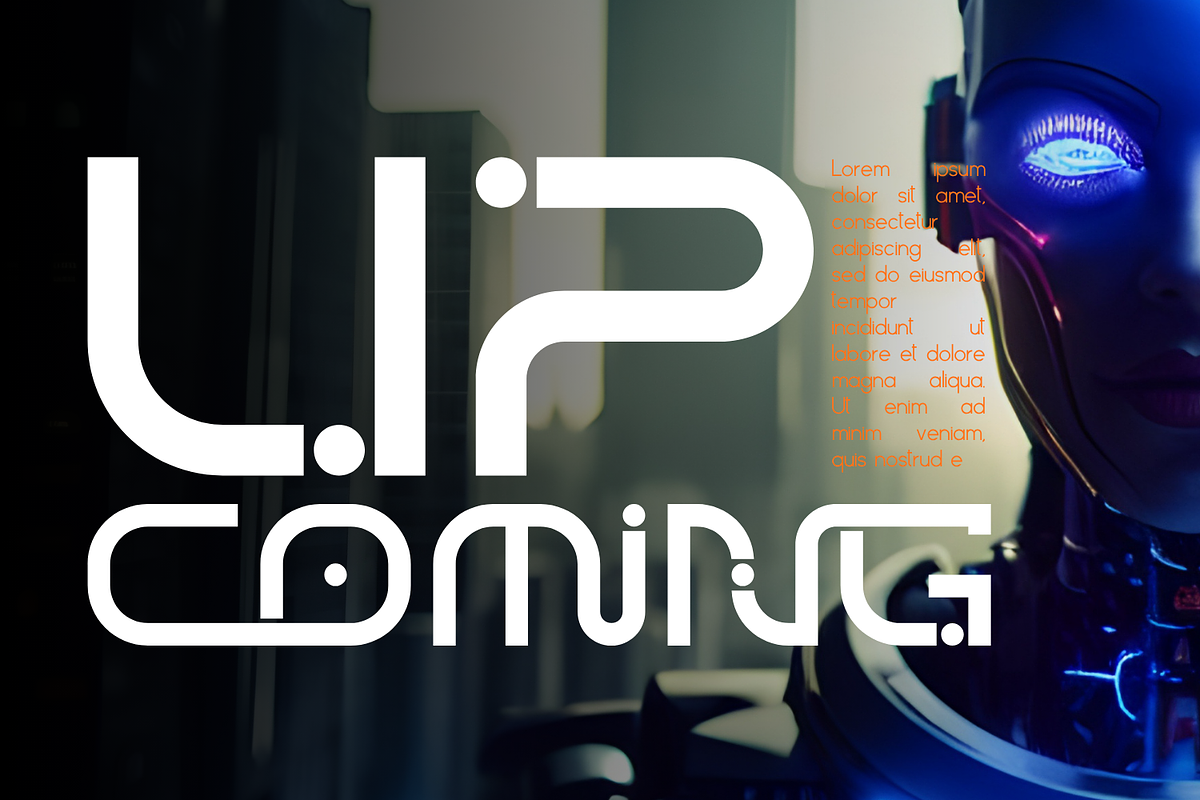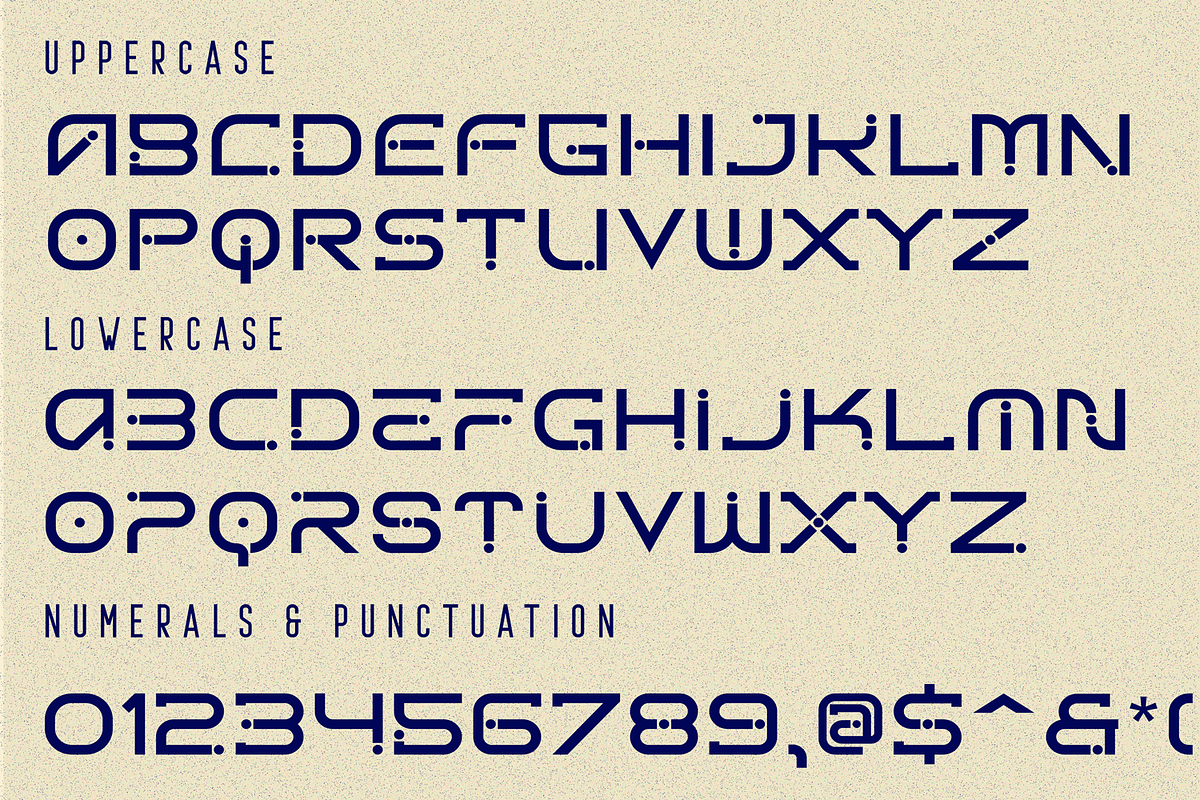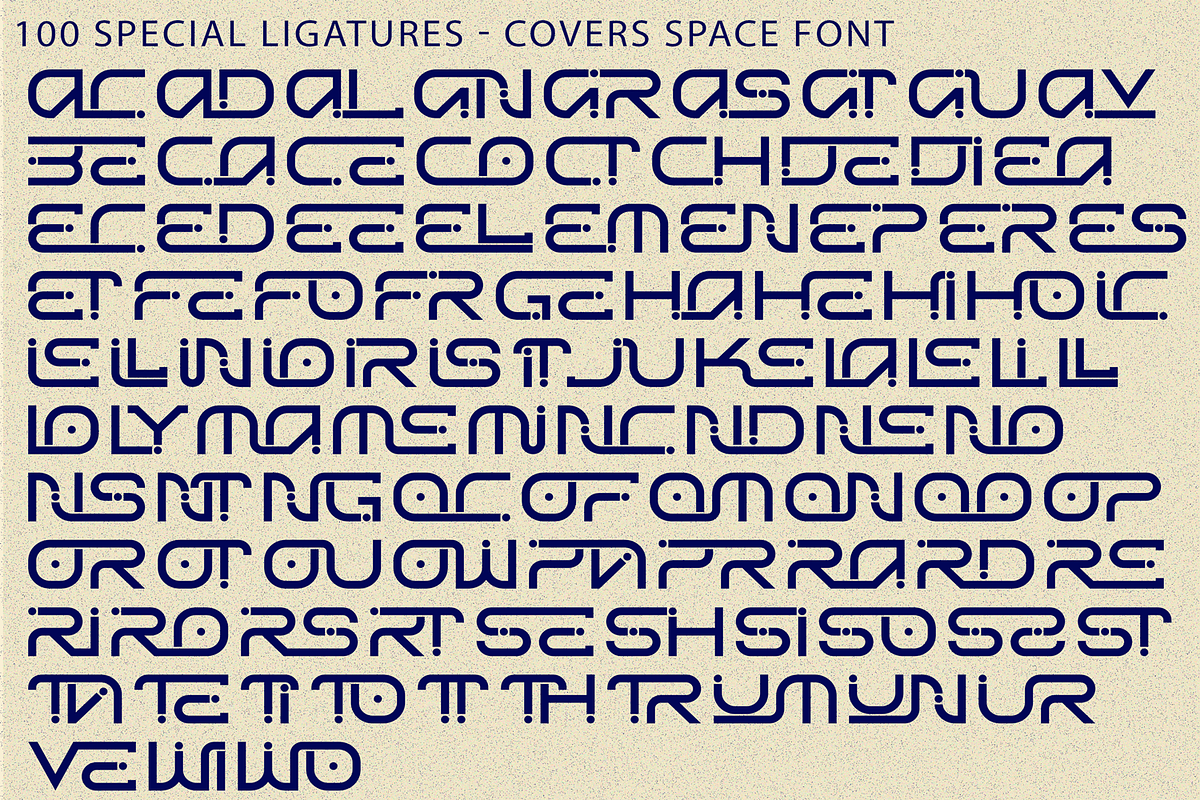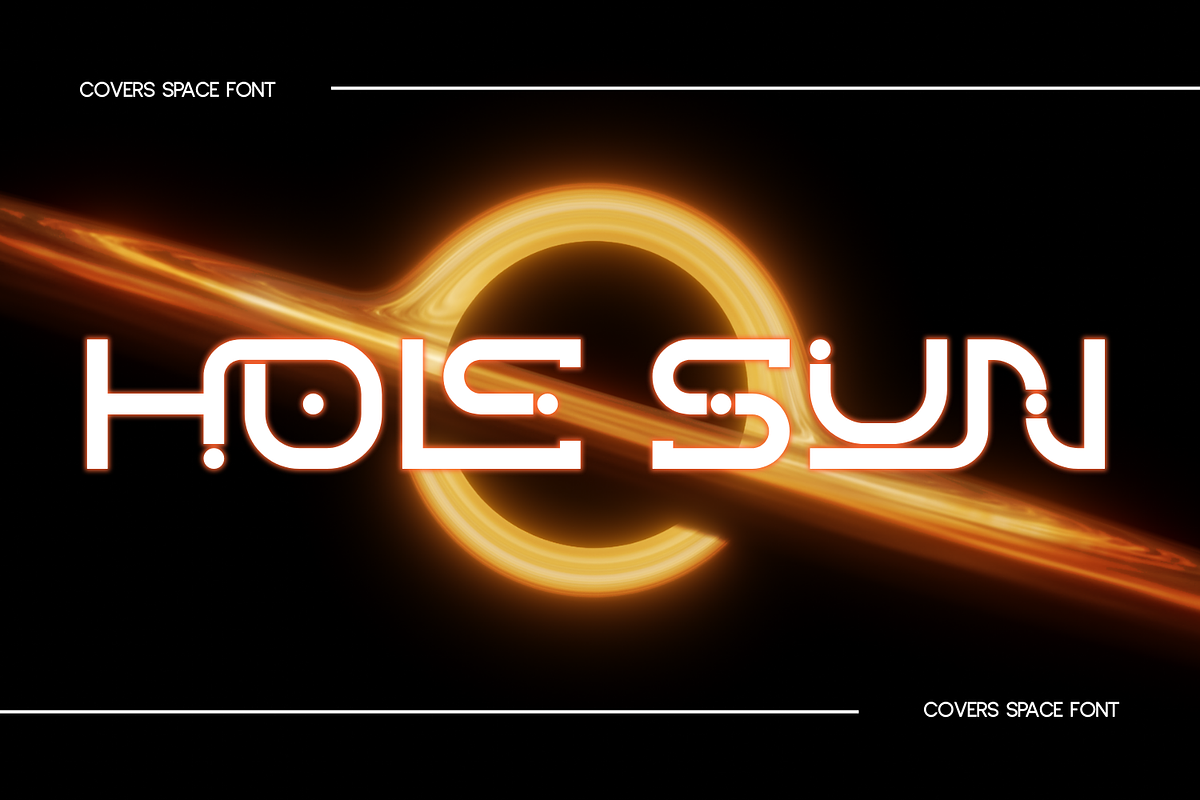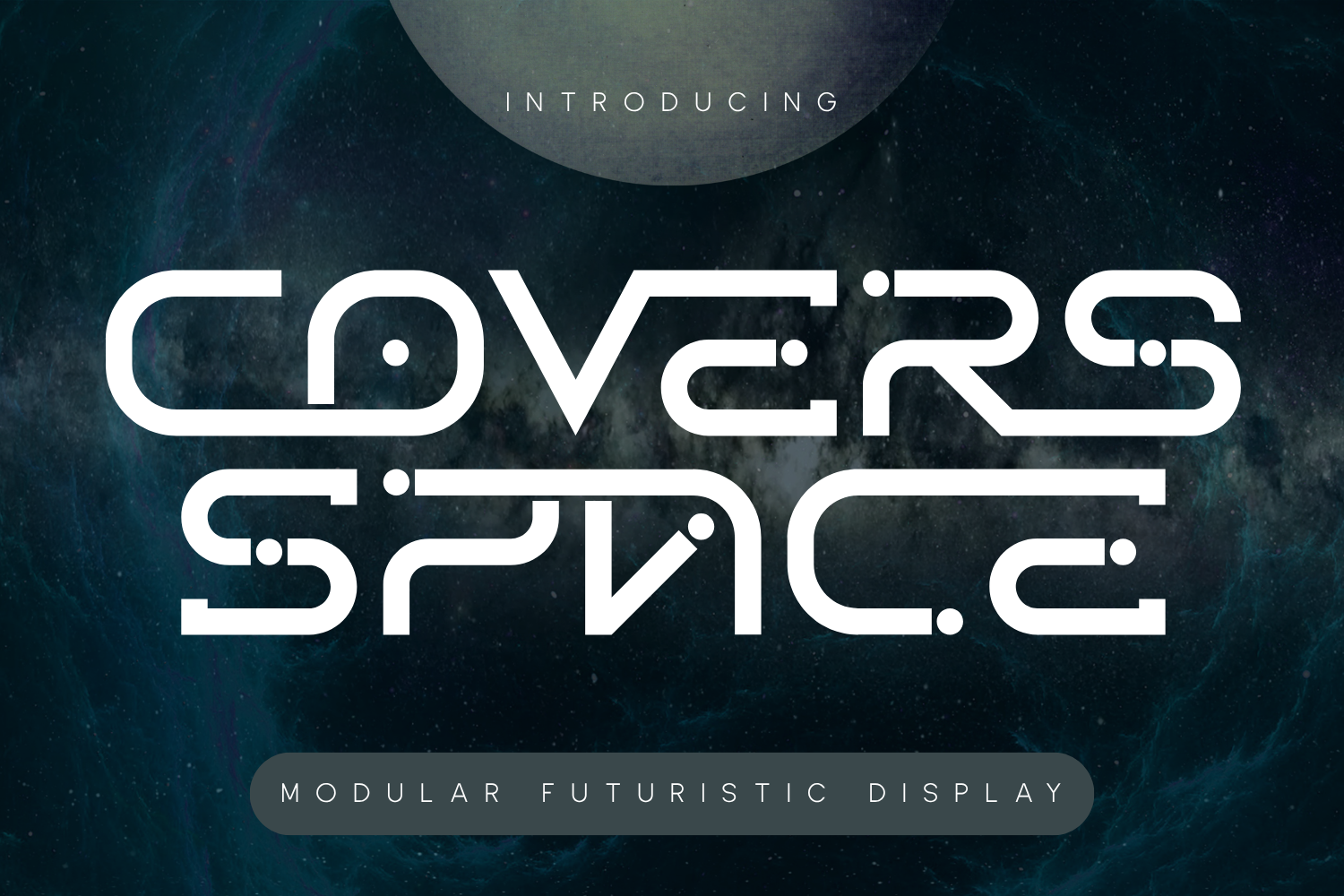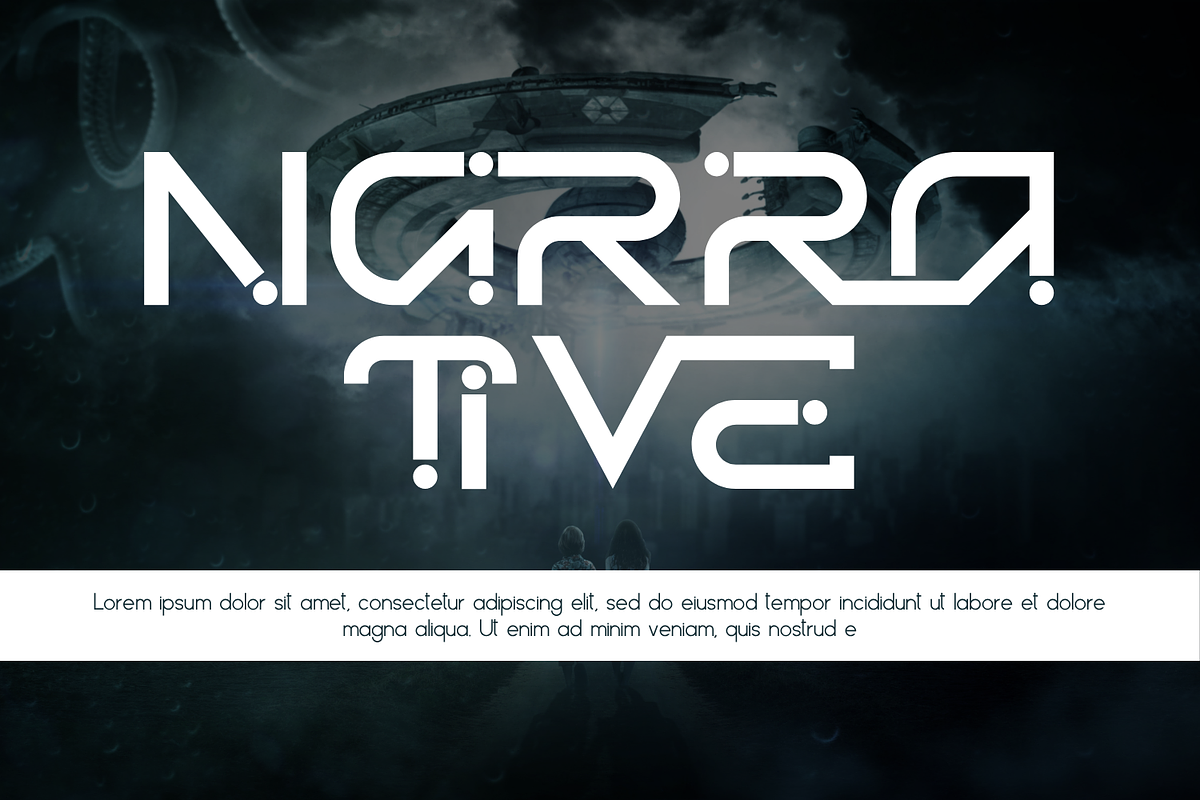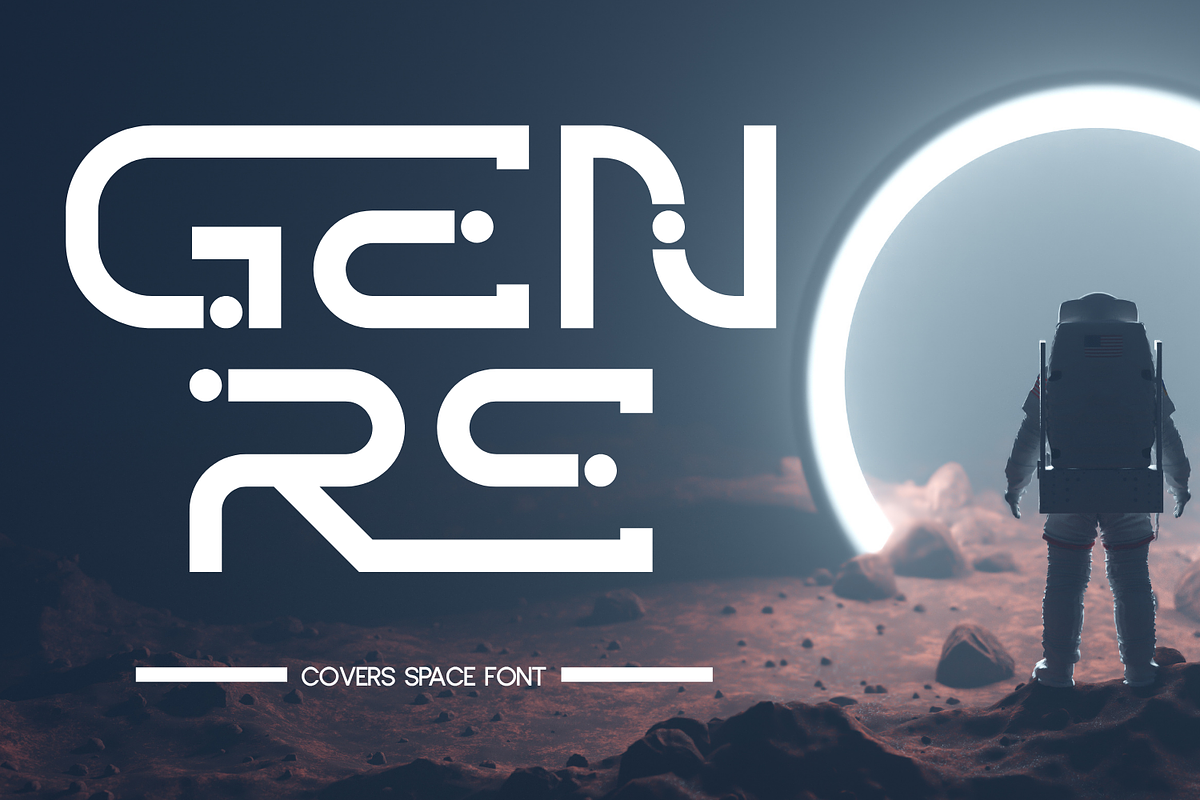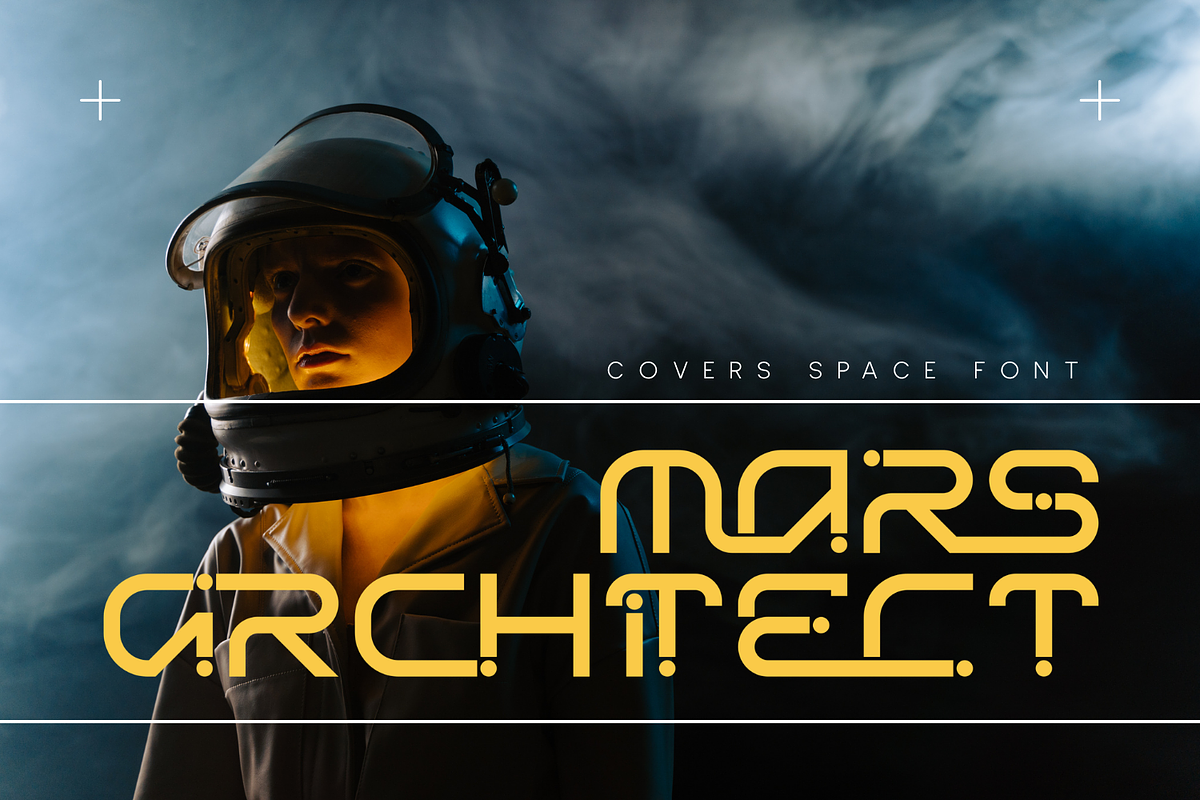
Covers Space Font
Covers Space Font is a futuristic sci-fi display font crafted with sleek geometric shapes and a clean monoline structure. Inspired by advanced technology, digital interfaces, and space exploration, this typeface features smooth curves, modular letterforms, and distinctive circular details that create a bold and innovative visual identity. With its minimalist construction, rounded edges, and futuristic cut-outs, Covers Space delivers a modern high-tech aesthetic that feels both sophisticated and forward-thinking. Every character is carefully designed to achieve maximum visual impact while maintaining excellent readability.
Uppercase & Lowercase Letters
Around 100 Special Ligatures & Alternates
Accented Characters for multilingual support
🔤About 100 ligatures combined with Stylistic Alternates Font:
ac ad al an ar as at au av be ca ce ch co ct de di ea ec ed ee el em en ep er es et fe fo fr ge ha he hi ho ie ic il in io ir is it ju ke la le li ll lo ly ma me mi nc nd ne ng no nt ns oc of om on oo op or ot ou ow pa pr ra rd re ri ro rs rt se sh si so ss st ta te th ti to tr tt um un ur ve wi wo